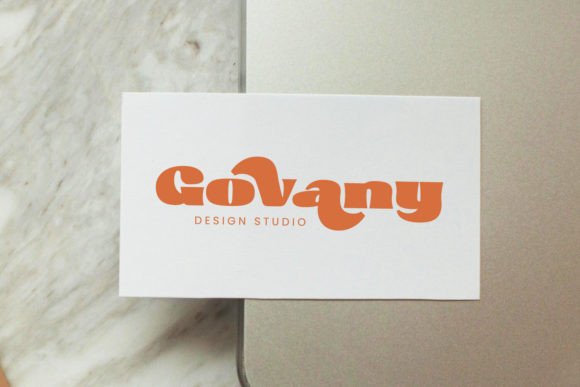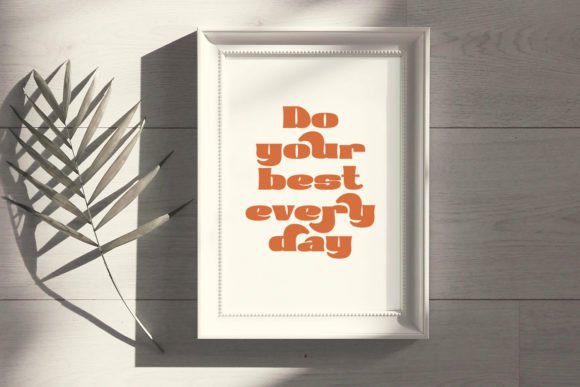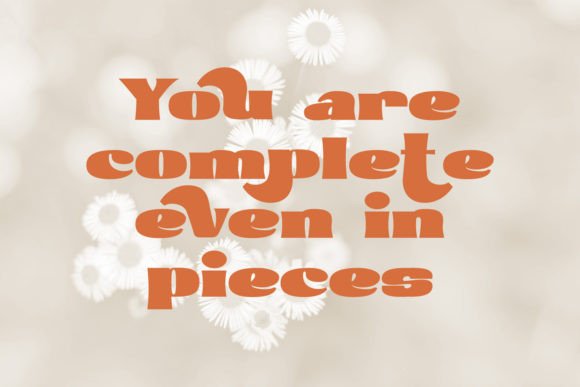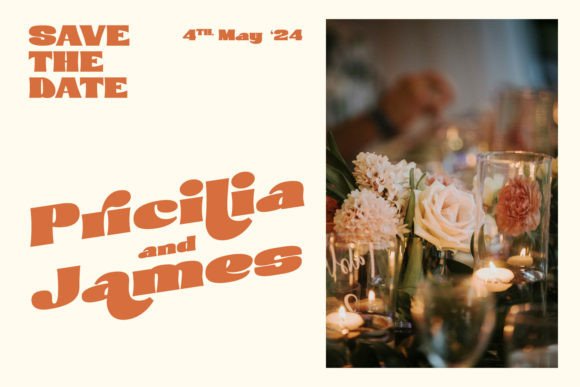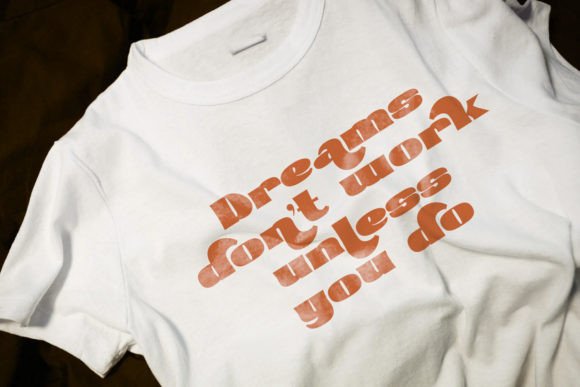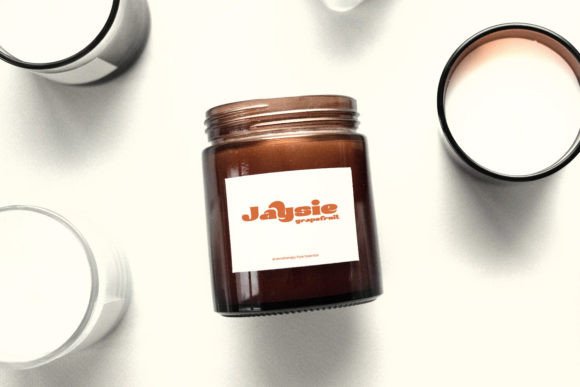
Discovering the Perfect Font for Your Next Creative Project
As a designer, you’ve probably found yourself staring at a blank canvas, searching for the perfect font to bring your vision to life. It’s that moment when everything seems to be missing a certain je ne sais quoi – until you stumble upon it. For me, that moment came when I discovered the Golden Sunny Font.
This delightful serif font is more than just a pretty face; it’s a carefully crafted tool designed to radiate warmth and charm. With its modern design and rounded letterforms, the Golden Sunny Font is perfect for creating inviting and approachable designs. Its thick weight and gentle curvature make it an excellent choice for headings, titles, and even body text.
Whether you’re working on a branding project, creating a website, or designing a marketing campaign, the Golden Sunny Font is a valuable addition to your design toolkit. Its versatility and charm make it an excellent choice for designers looking to create engaging and memorable designs.
Golden Sunny Font Key Features
- Font Family: Golden Sunny Font is a unique, custom-designed font family that includes multiple weights and styles.
- Unique Characteristics: Golden Sunny Font features a distinctive, sun-inspired design with intricate details and subtle texture, adding a touch of warmth and elegance to any design.
- Language Support: Supports a wide range of languages, including Latin, Cyrillic, and Greek scripts, making it a versatile choice for global designs.
Designer Review: Golden Sunny Font
Overall, I think Golden Sunny Font is a decent font with some lovely qualities, but also a few limitations. Let’s dive into what works well and what doesn’t. ✨
- Warm and Inviting Feel – The golden hue of this font gives it a warm and inviting feel that’s perfect for creating a cozy atmosphere in designs. Whether it’s a branding project or a greeting card, Golden Sunny Font will make your content feel more approachable.
- Unique Character – The font’s unique character and flair set it apart from more generic fonts, making it a great choice for designers who want to add some personality to their work.
However, there are some limitations that might hold you back from using Golden Sunny Font in all your projects. ⚠️
- Overused and Familiar – Unfortunately, the golden font trend is quite popular, and some users might find Golden Sunny Font too familiar or overused.
- Limited Legibility – The font’s unique character also makes it less legible in certain contexts, such as body text or long blocks of text.
Overall, I’d say Golden Sunny Font is a solid choice for designers who want to add a touch of warmth and personality to their projects. Just be mindful of its limitations and use it sparingly to avoid overuse.
Practical Application Guide: Golden Sunny Font
Golden Sunny Font is ideal for creating warm and inviting designs. Use it for:
1. Branding and logos
2. Social media graphics
3. Invitations and event materials
4. Packaging and labeling
Remember to adjust the font size and color to suit your design needs.
Alternatives to Golden Sunny Font
Playfair Display is a high-end serif font ideal for titles, headings, and other display text. It’s perfect for creating elegant and sophisticated designs. When to use: luxury branding, high-end advertising, or formal invitations.
Comparison to Golden Sunny Font: While Golden Sunny Font has a warm, sunny feel, Playfair Display is more formal and elegant. Playfair Display has a more complex and ornate design, making it suitable for high-end applications.
Lato is a modern sans-serif font designed for body text and captions. It’s clean, legible, and works well for a variety of design projects. When to use: corporate branding, blogs, and news websites.
Comparison to Golden Sunny Font: Lato is more modern and clean compared to Golden Sunny Font, which has a more vintage feel. Lato is also more versatile and can be used for body text, whereas Golden Sunny Font is more suitable for titles and headings.
What is the language support for Golden Sunny Font?
Golden Sunny Font includes support for Latin, Cyrillic, and Greek scripts. This makes it suitable for designing content in multiple languages. However, please note that the font may not include support for non-Latin scripts, and you may need to use additional fonts or character sets to support these languages.